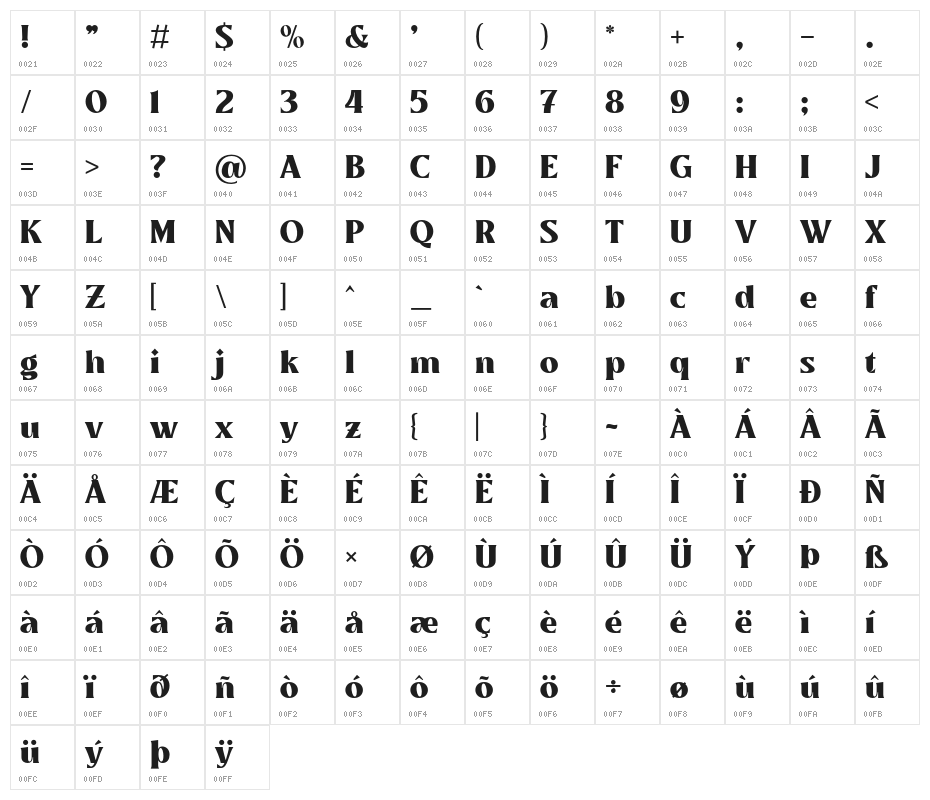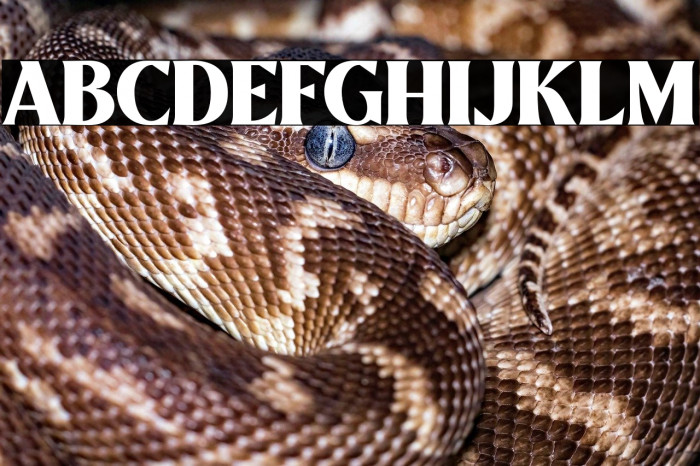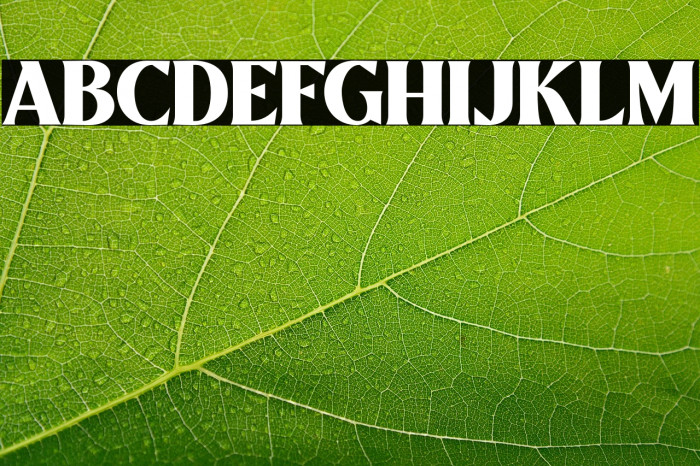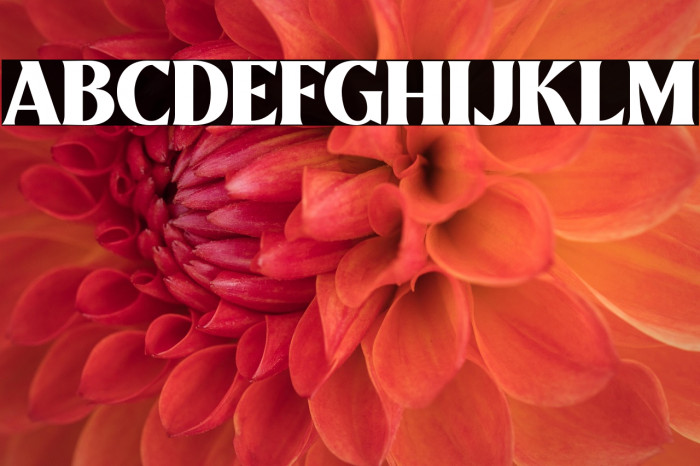
Mullingar Font
Mullingar Description
This font is a bold and striking serif typeface with a strong presence. The characters exhibit a high contrast between thick and thin strokes, giving it a dramatic and elegant appearance. The serifs are pronounced and slightly curved, adding a touch of sophistication. The uppercase letters are tall and commanding, while the lowercase letters maintain a consistent style with a slightly rounded form. Numbers are clear and bold, ensuring readability. The special characters are designed to match the overall aesthetic, making this font versatile for various applications.
| Overall Style | Classic |
| Proposed Projects | Ideal for headlines, branding, editorial design, and luxury product packaging. |